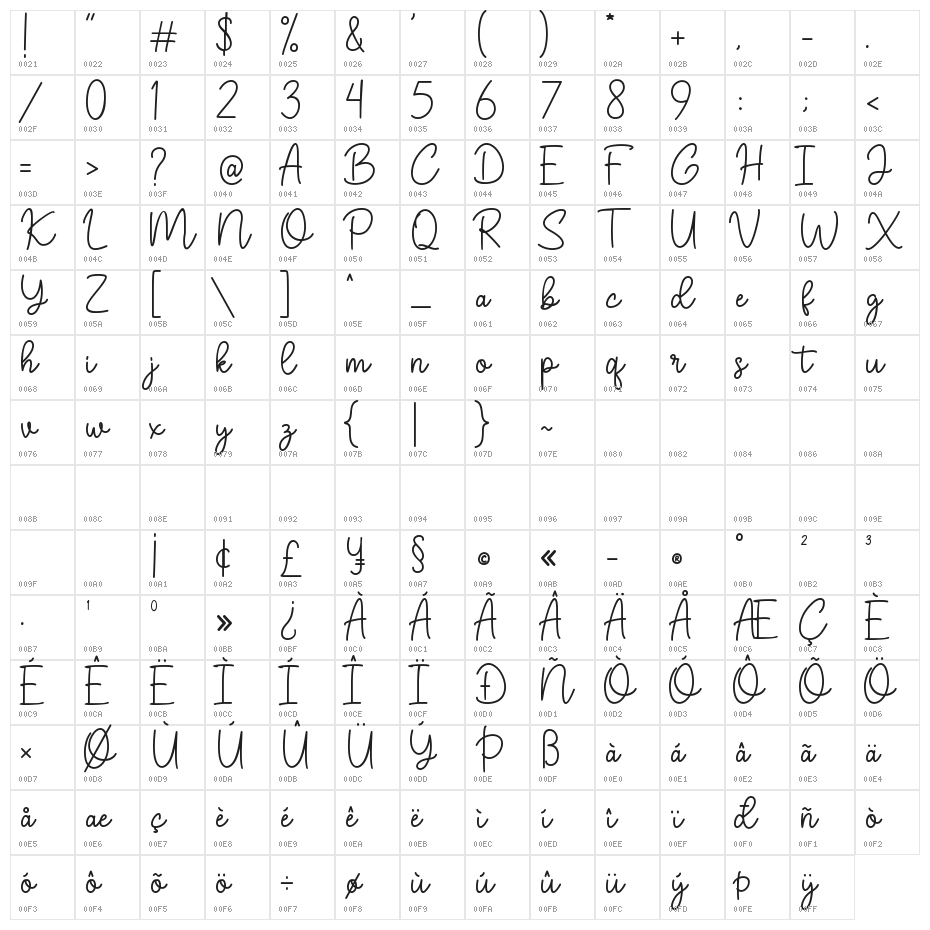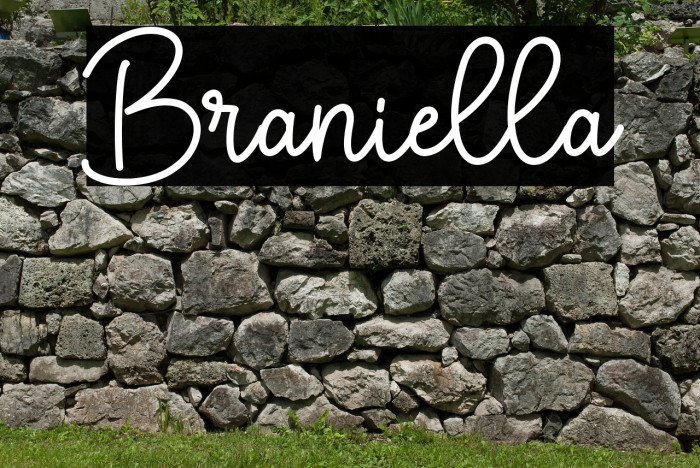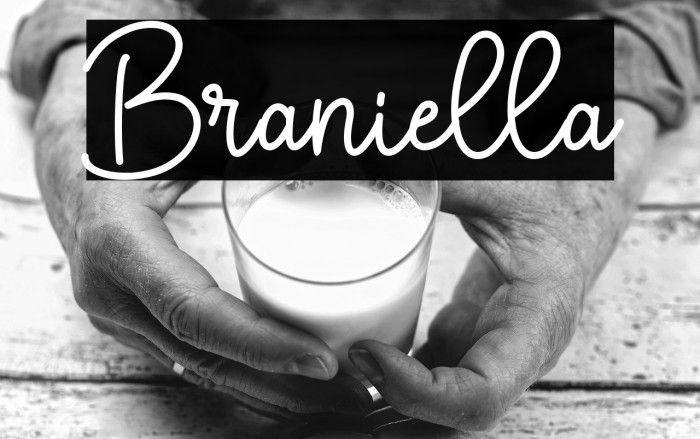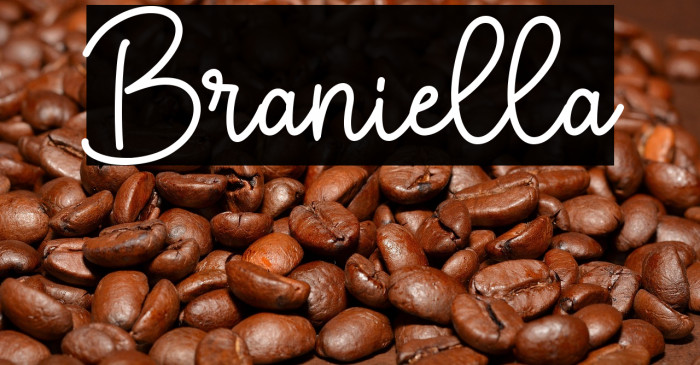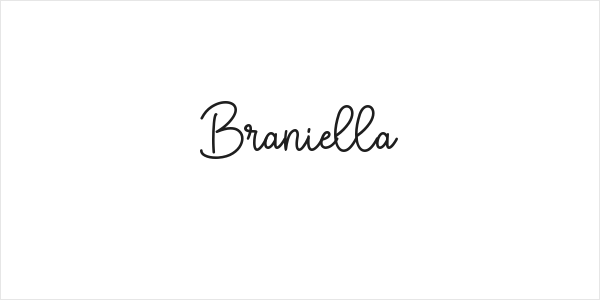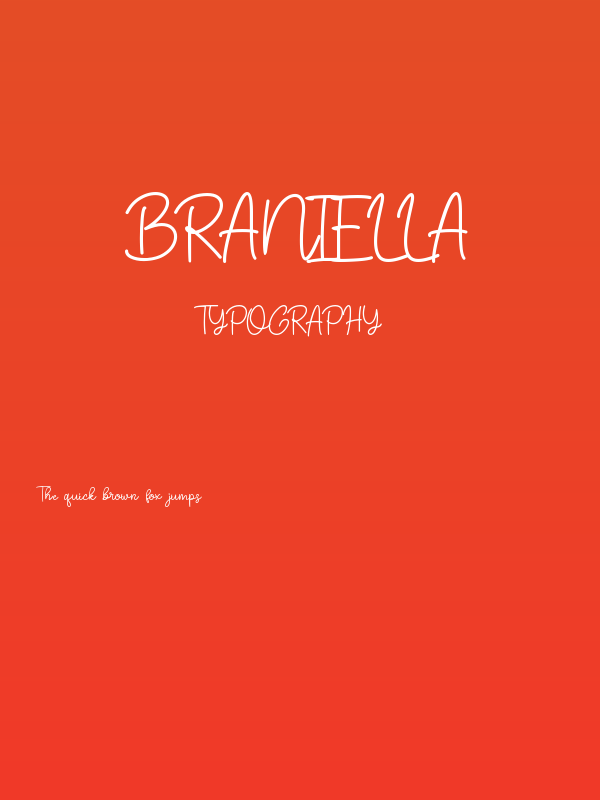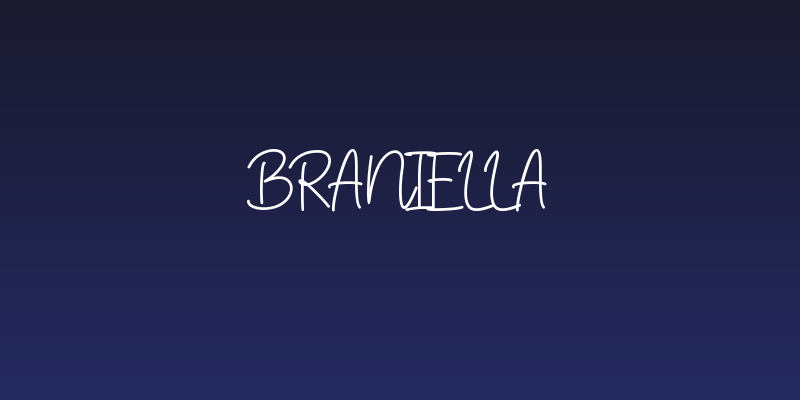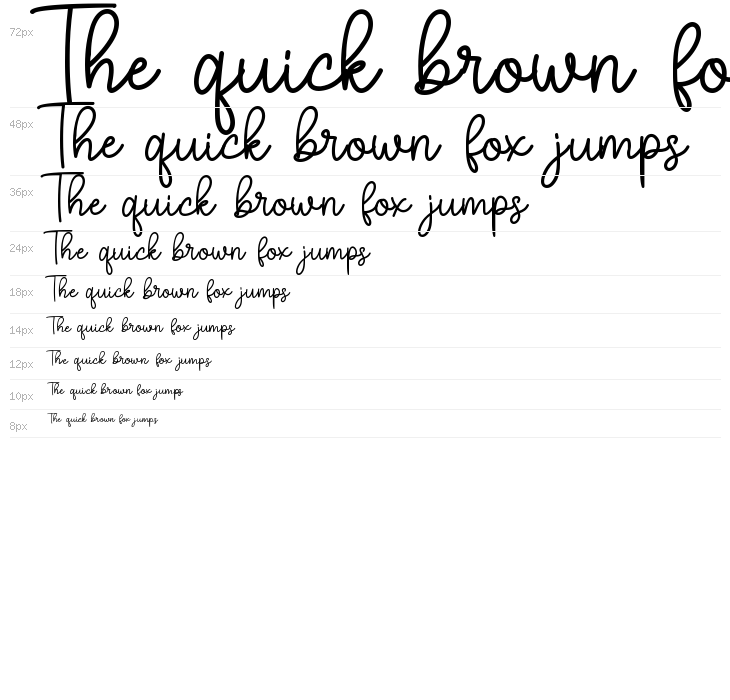
Braniella Font
Braniella Description
A playful and casual handwritten script font with a smooth flow and rounded edges, suitable for informal and creative designs.
| Use Case | Logos, Invitations, Greeting cards |
| Proposed Projects | Greeting cards, invitations, personal branding. |